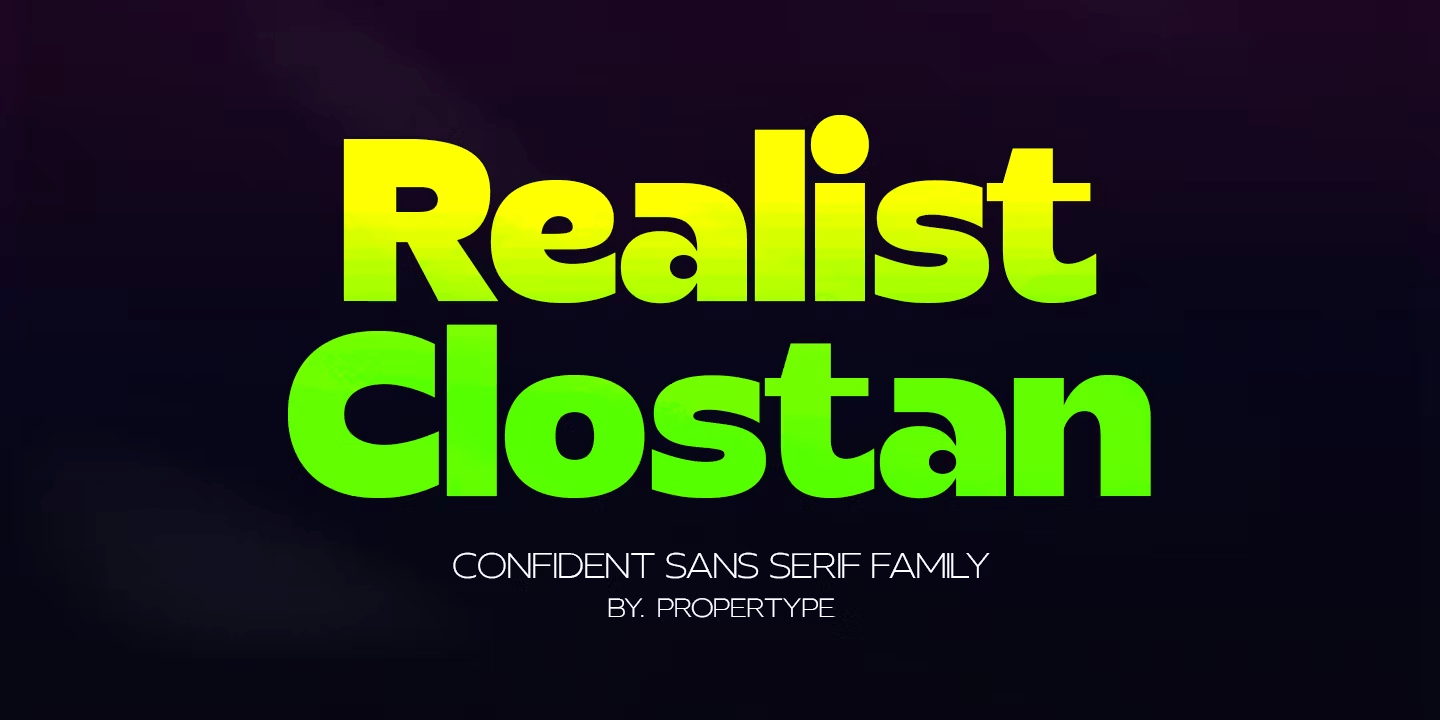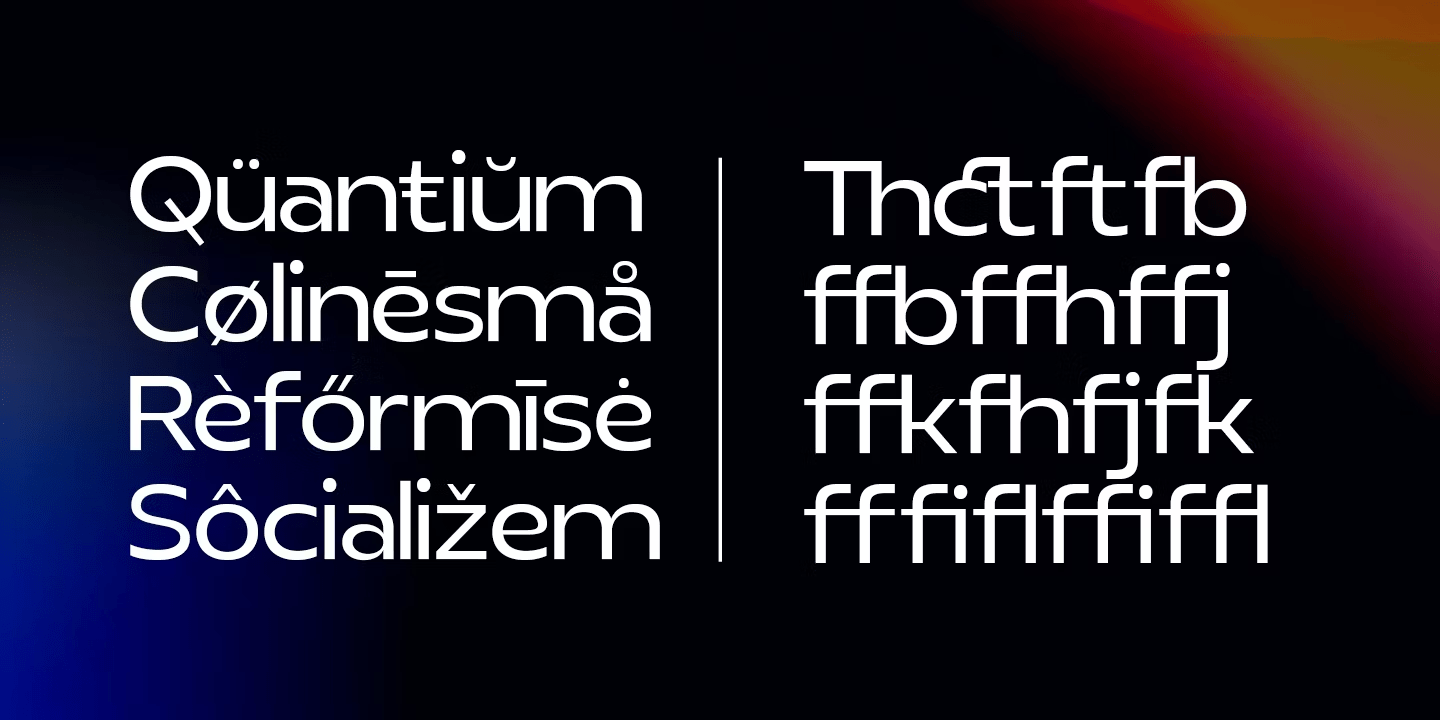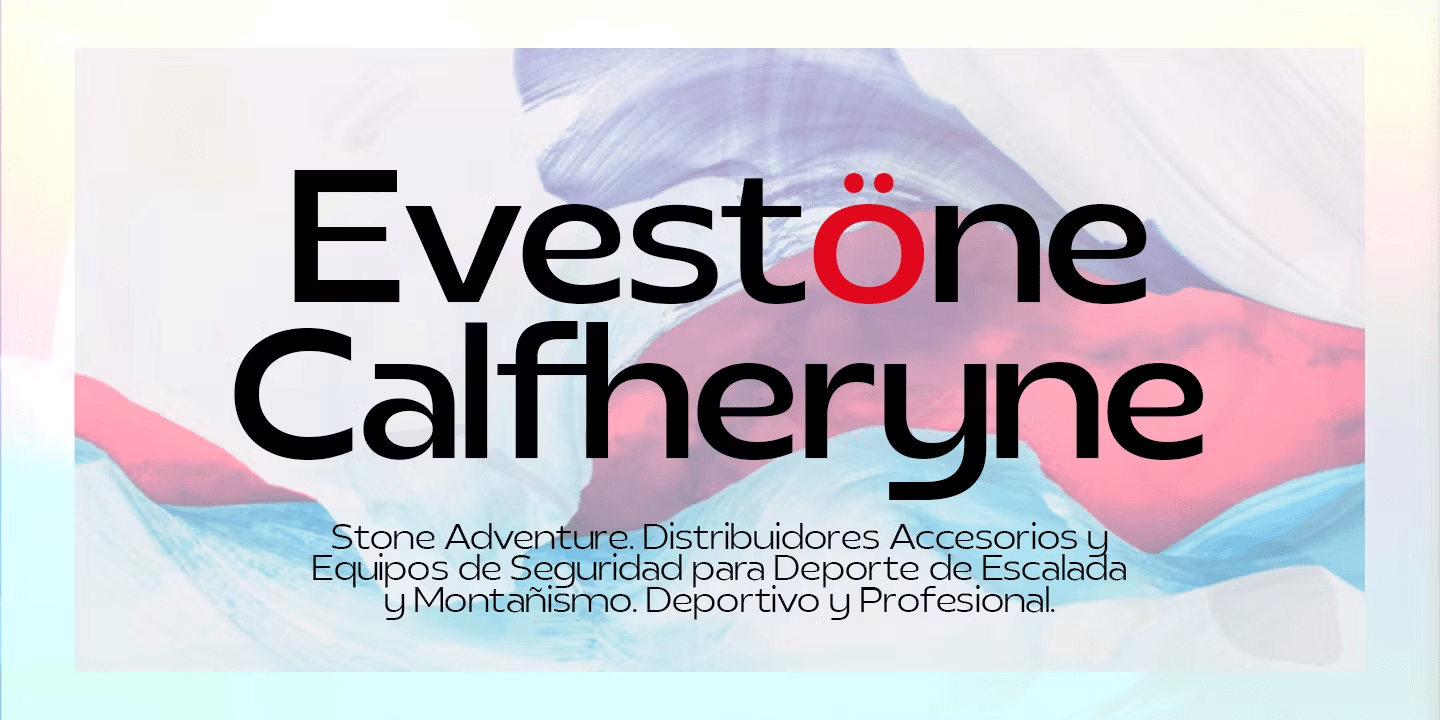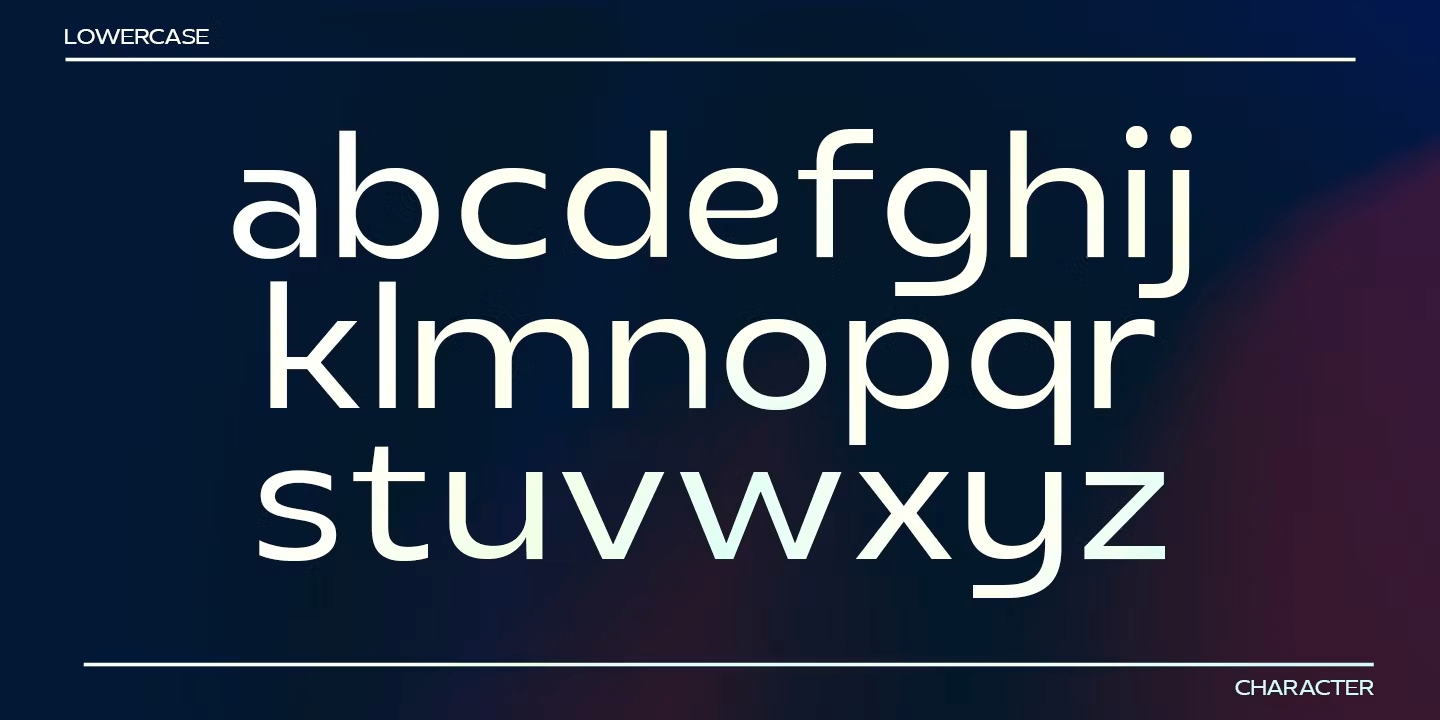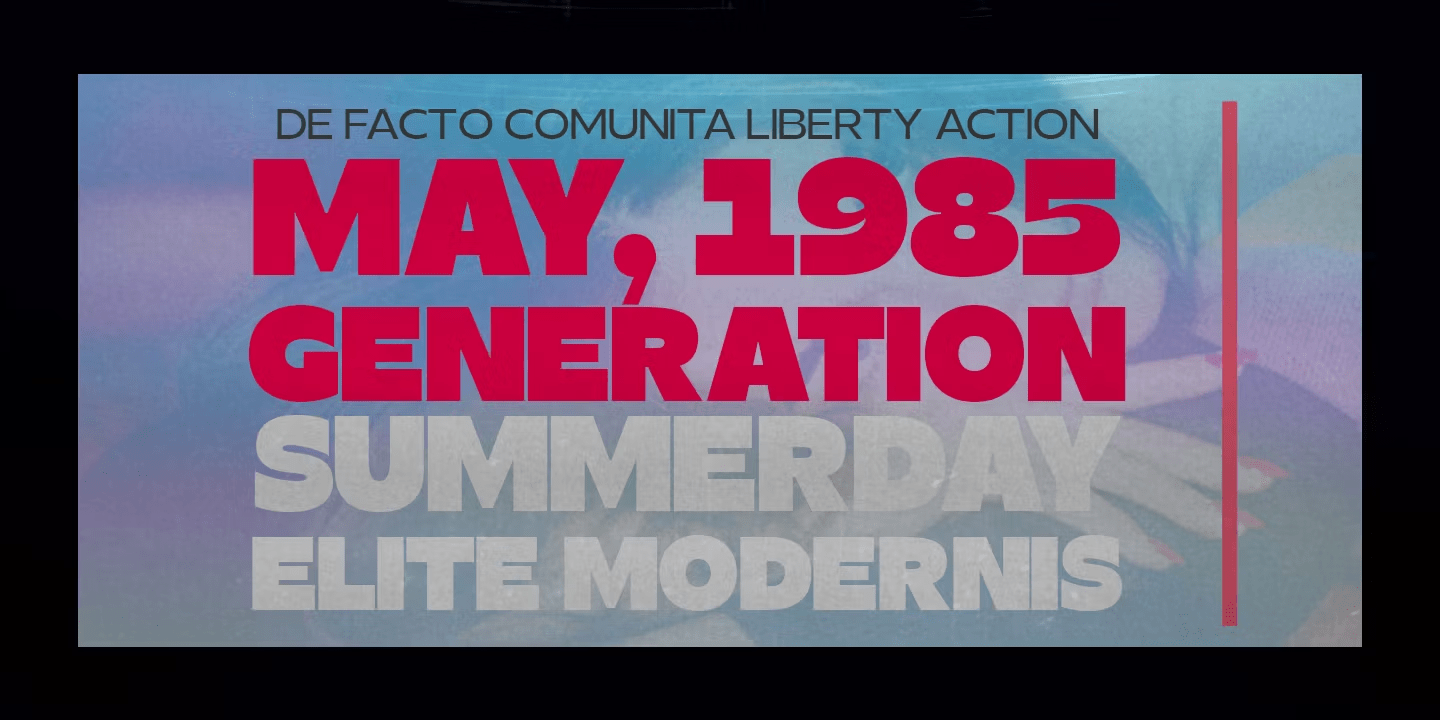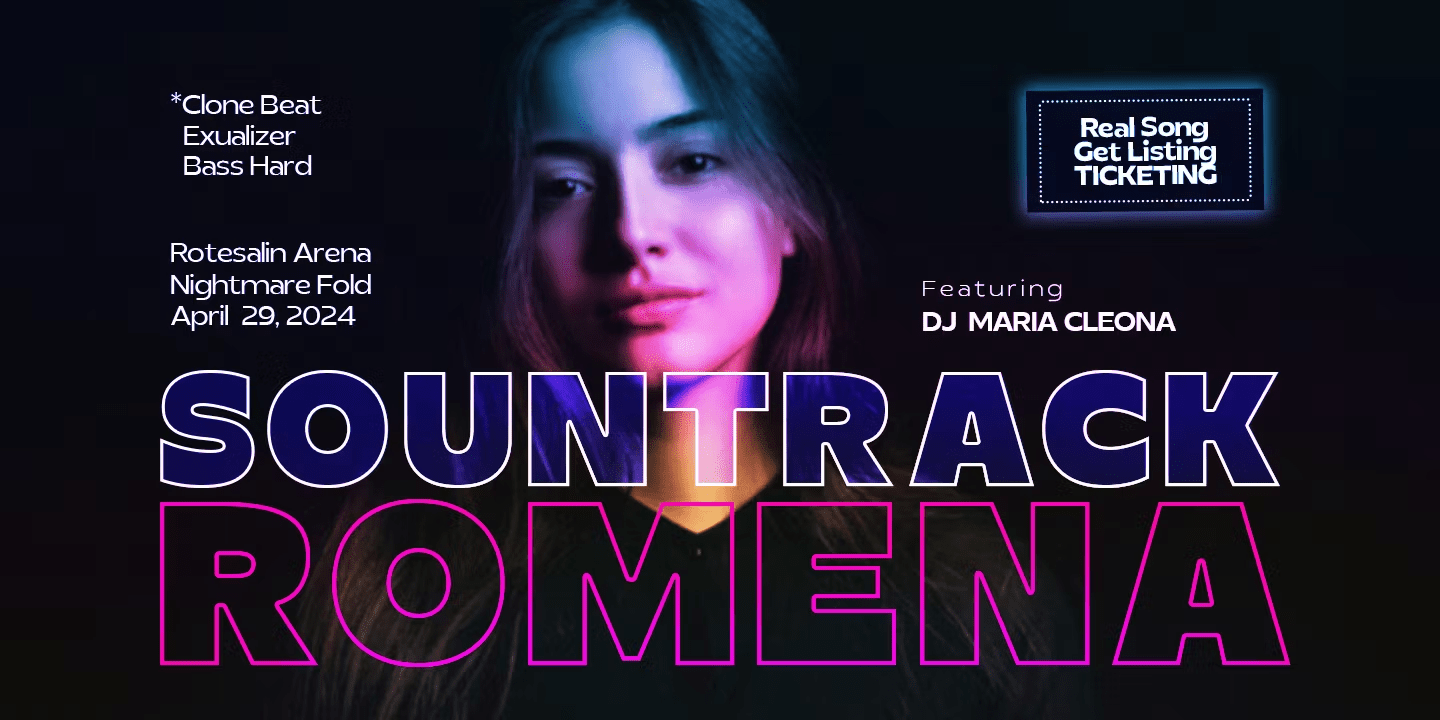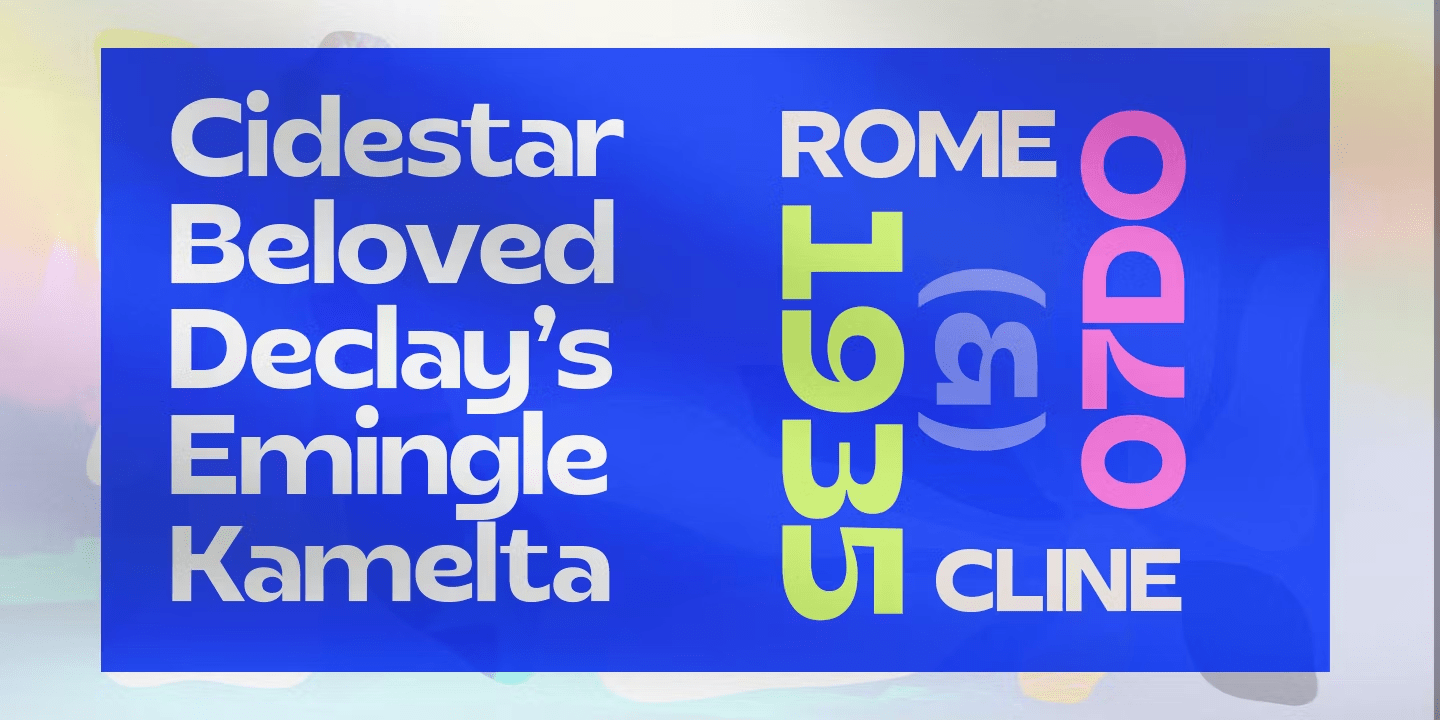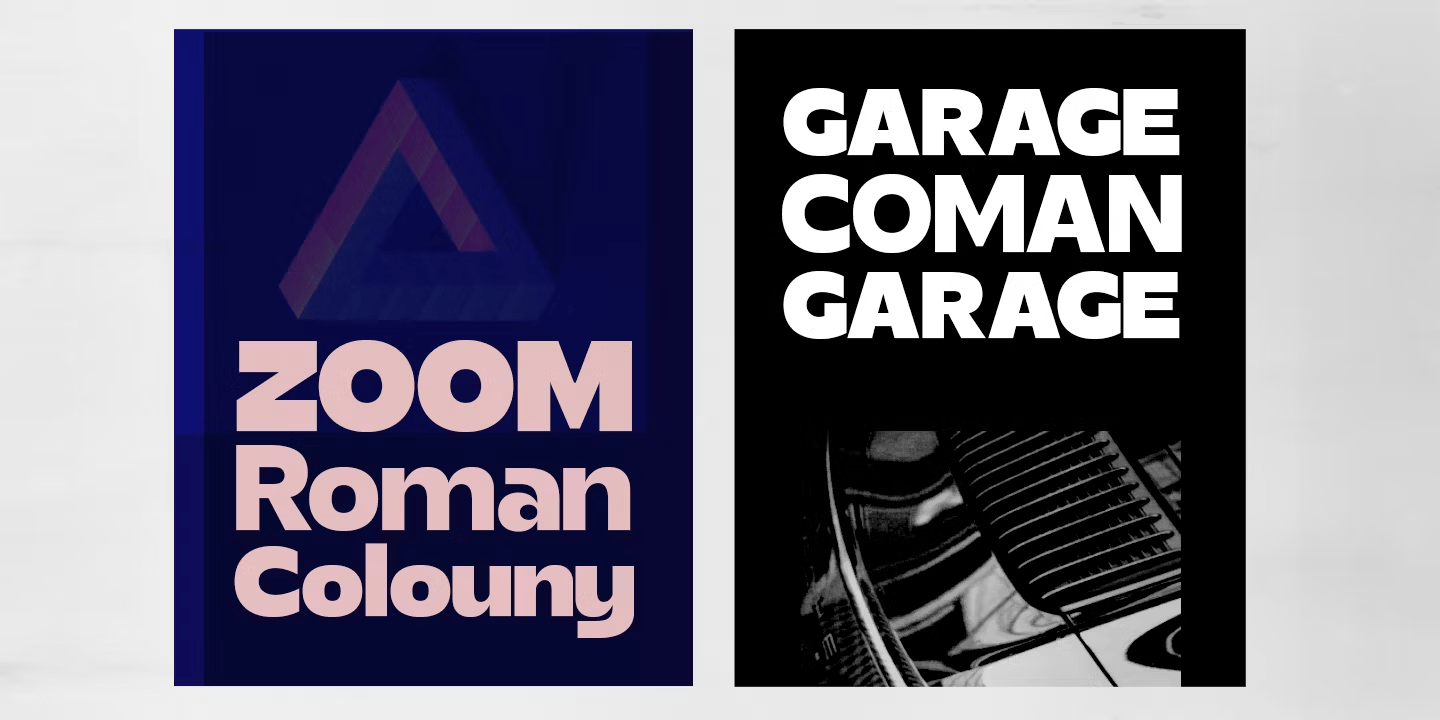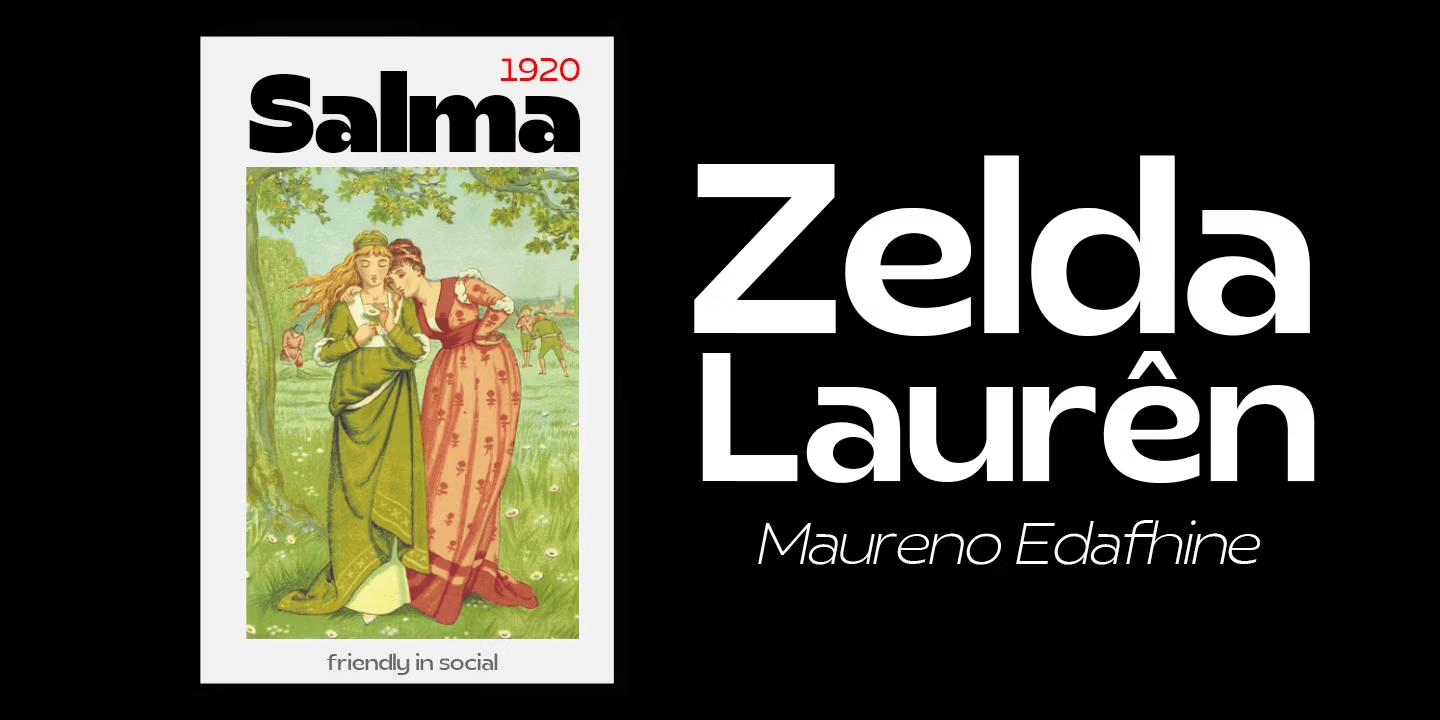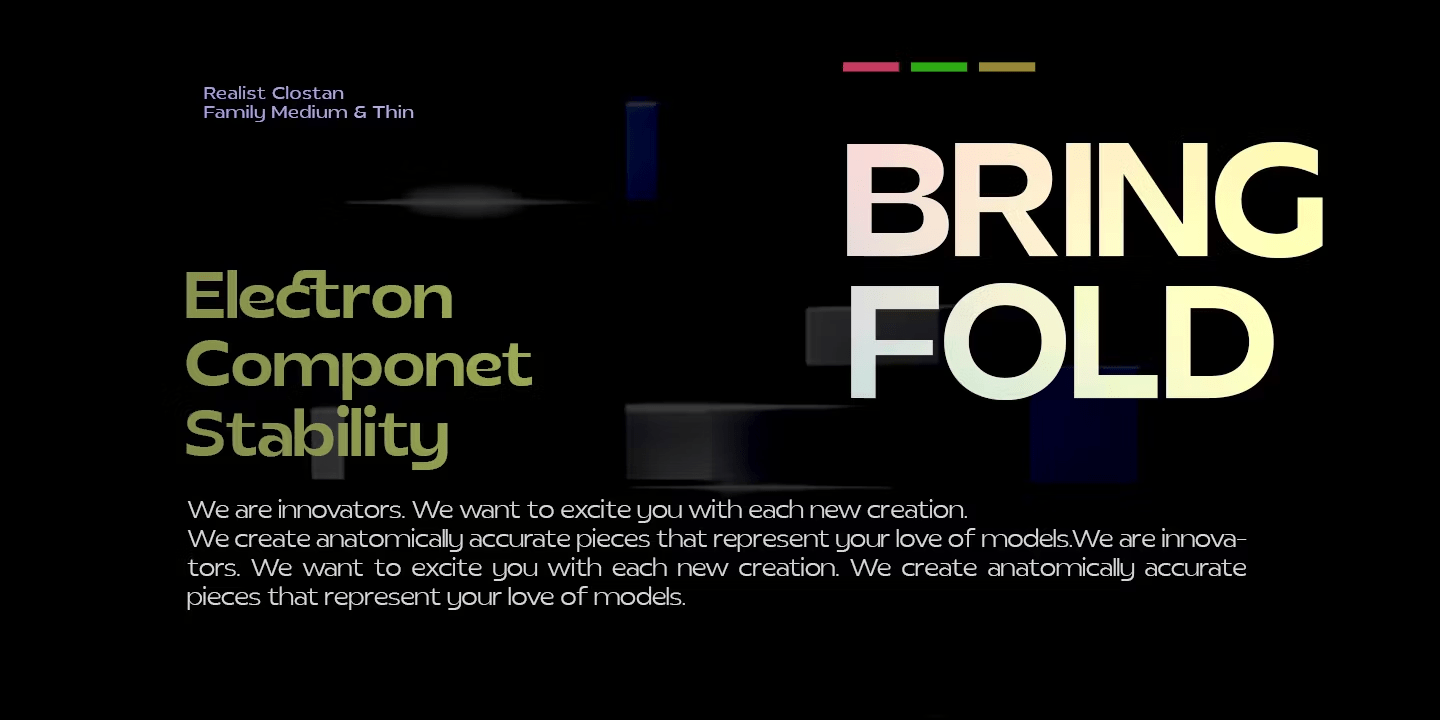
Clostan Realis
Font Family by Propertype
Clostan Realis is an elegant contrasting Serif typeface. It offers a modern take on an old classic genre, confidently playing with extreme bold strokes and whispered thin curves, but ditching the sans, embedding it firmly in a modern design. It is a careful collaboration of beauty and function.
Clostan Realis displays upper and lower case letters, supports ALL Latin-based languages.
It holds all the weight, two outlines and nine italics, each offering something different and all made to work together in harmony.